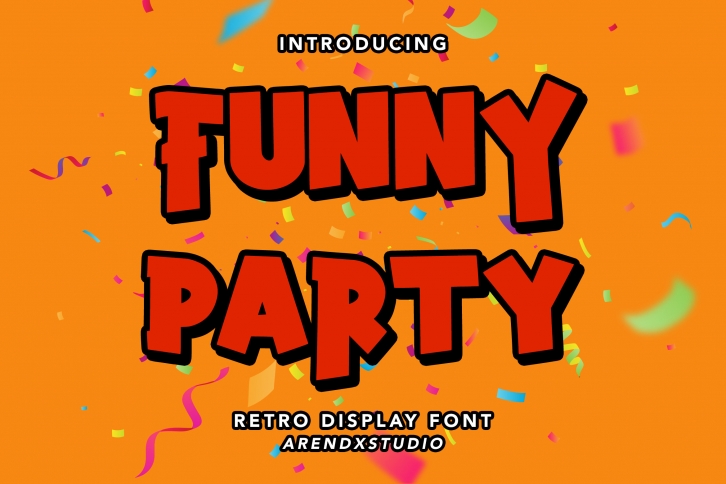
Funny Party is a cute and colorful display font. It embodies playfulness and authenticity and is the perfect choice for any children activity or school project. Funny Party is PUA encoded which means you can access all of the glyphs and swashes with ease!Â